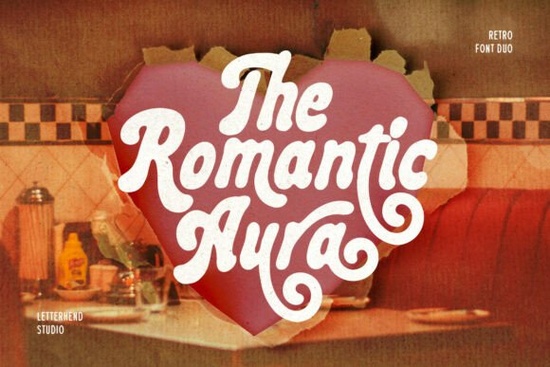
The Romantic Aura Duo Font is a groovy, bubble-style retro typeface that brings serious 70s energy to any design. With thick, curvaceous letterforms and playful ligatures, this font creates a sense of movement and warm nostalgia that's hard to ignore. Whether you're designing social media graphics, vintage apparel, or bold music posters, it delivers a chunky, friendly aesthetic that makes your message stand out.
If you've been searching for a retro display font that actually feels fun to work with, this one deserves a closer look. Let's break down what makes it useful, who it's best for, and how to get the most out of it.
What Makes This Retro Font Different From Other Bubble-Style Typefaces?
Plenty of fonts claim a retro or vintage feel, but the Romantic Aura Duo Font goes beyond surface-level styling. The letterforms are intentionally chunky and rounded, giving text a soft, approachable quality while still feeling bold. The built-in ligatures add a layer of personality that plain retro fonts often miss characters flow into each other in a way that feels organic rather than forced.
What Can You Actually Use This Font For?
This is where the Romantic Aura Duo really shines. Its versatility across different project types is one of its strongest qualities. Here are some practical applications:
- Social media graphics Instagram stories, quote posts, and promotional banners where you want a bold, eye-catching headline
- Print-on-demand products T-shirts, tote bags, mugs, and stickers with a vintage or psychedelic aesthetic
- Valentine's Day branding The "romantic" in its name isn't just for show. Its warm, rounded shapes work beautifully for love-themed designs
- Music posters and album art Especially for funk, soul, or retro-inspired genres
- Editorial and magazine layouts Youth-oriented publications where personality matters more than formality
- Event flyers and invitations Birthday parties, themed events, or any project that needs a playful, nostalgic vibe
How Do You Pair This Font With Other Design Elements?
A good typeface works best when it's styled thoughtfully. For the Romantic Aura Duo, there are a few approaches that really bring out its character:
- Grainy textures Layering a subtle grain or noise texture over your text helps lean into the psychedelic, vintage feel
- Neon color palettes Think hot pink, electric blue, and bright orange against dark backgrounds
- Rounded sans-serifs for body text If you need a secondary font for paragraphs, choose something clean and simple to let this display font take the spotlight
If you're building a design project that needs a different mood alongside this font, consider pairing it with something like a script or handwritten style for contrast, or a modern casual typeface for body copy.
Does It Work for Western, Grunge, or Other Aesthetic Styles?
The Romantic Aura Duo is firmly rooted in the retro-bubble aesthetic, so it's not the right fit for every project. If you're working on a rugged, distressed look, a distressed display typeface would be a better match. Similarly, for projects with a country or frontier theme, a western-style display font will serve you more naturally.
That said, the playful energy of this font can complement a wide range of modern design projects you just need to use it intentionally and pair it with supporting elements that share the same visual tone.
Is This Font Worth It for Small Businesses and Creators?
If your brand or product line leans into vintage, retro, fun, or youthful aesthetics, then yes this is a solid investment. For print-on-demand sellers especially, a distinctive display font like the Romantic Aura Duo can help your products stand out in a crowded marketplace. It's the kind of typeface that gives your designs a recognizable personality without requiring hours of custom lettering.
Small businesses working on seasonal campaigns particularly around Valentine's Day, summer events, or throwback-themed promotions will find it especially useful for headlines, logos, and promotional materials.
Quick Checklist Before You Buy
- Confirm the font works with your design software (it's PUA-encoded, so compatibility is broad)
- Think about 2–3 specific projects where you'd use it right away
- Save a few color palette and texture references to pair with the font
- Check if you need a complementary body font look at options like a retro display typeface collection for inspiration
- Test the alternates and swashes to see which character styles work best for your layout
Tip: Before committing to a final design, mock up your text in at least two different color schemes. The rounded, bubbly forms of this font can feel completely different depending on your palette a pastel version reads soft and romantic, while a neon-on-dark version leans fully into that 70s psychedelic groove. Getting this right early saves revision time later.